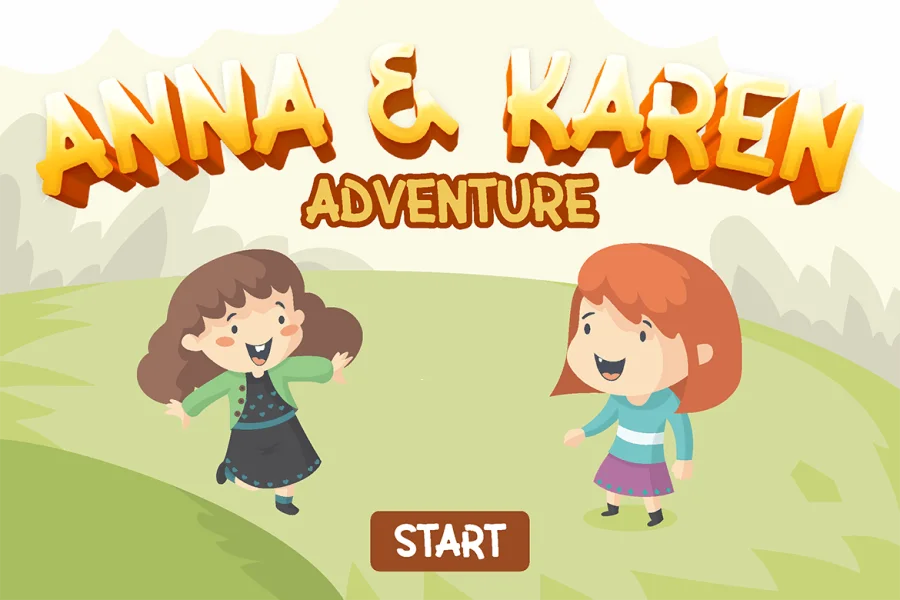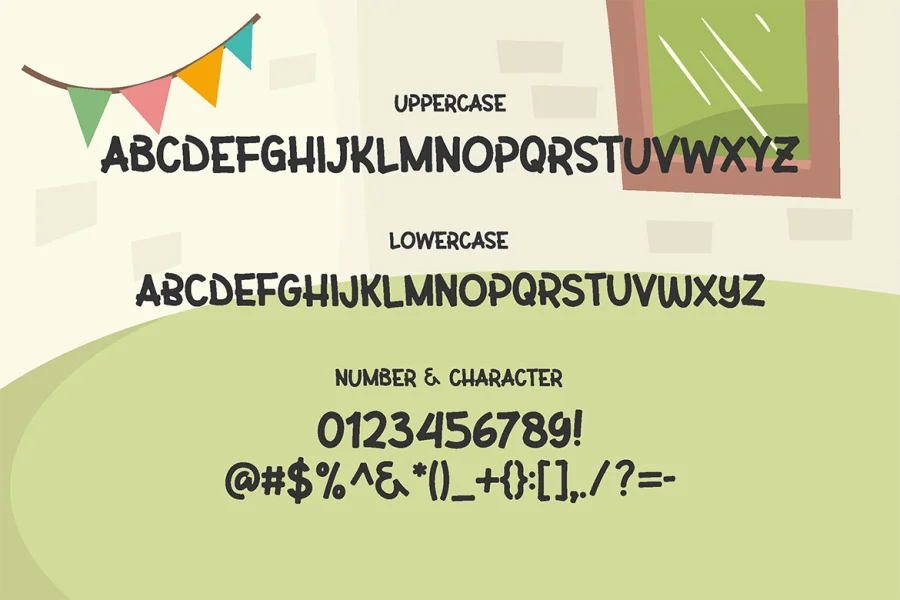
Having a blocky shape with rounder corner and fun baseline, will make Kiddy Play emphasize the happiness on every word you put on your project.
Suit perfectly for Online Games, poster, movie title, fast food menu, magazine, youtube covers, youtube thumbnails, social media page covers and so on…